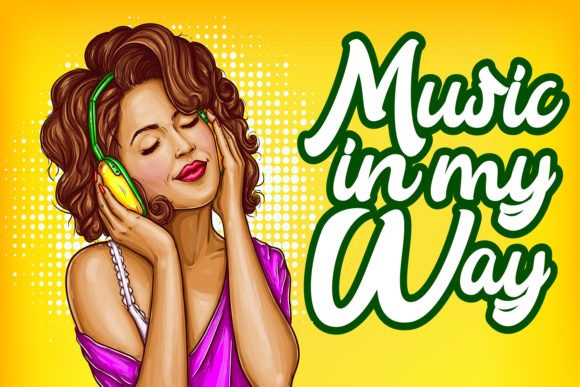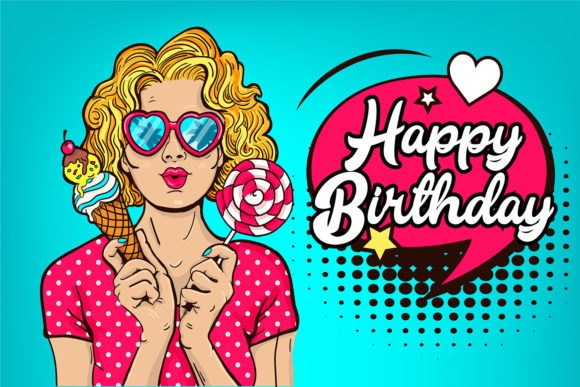
Baby Sunshine Brush Font
Baby Sunshine is a sweet, all round and brushed handwritten font. Warm, romantic and jolly, this font will turn each of your project ideas into real works of art. Baby Sunshine is PUA encoded which means you can access all of the glyphs and swashes with ease!